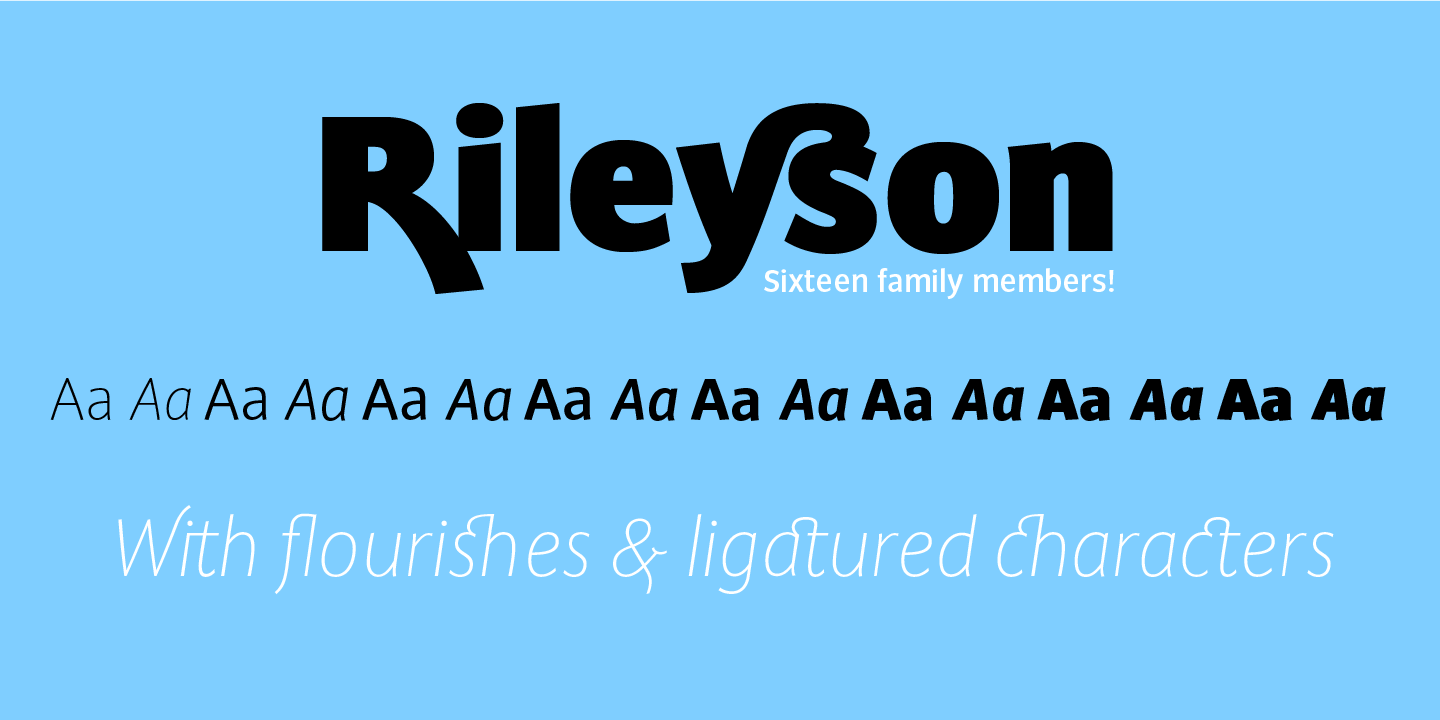
The Rileyson Font is perfect for contemporary corporate branding, modern business communications, professional service identities, executive presentations, sleek website designs, sophisticated marketing materials, premium consulting firms, and distinguished organizational logos. This refined typeface excels in projects for law firms, financial institutions, consulting companies, technology corporations, and businesses requiring authoritative typography that conveys trustworthiness, expertise, and contemporary professional excellence.
What makes the Rileyson Font exciting is its masterful balance of traditional reliability with modern sophistication and executive presence. The font features meticulously crafted letterforms with confident proportions and subtle contemporary refinements that create an immediate association with professional competence and business authority. Its distinguished character and versatile elegance make it perfect for organizations seeking to establish credibility and leadership while maintaining approachable professionalism. The font's executive quality and business acumen create lasting impressions in competitive professional markets.
The Rileyson Font family includes professionally-designed variations: Light Professional, Regular Business, Medium Executive, Semi Bold Authority, Bold Leadership, and Heavy Corporate versions. Each weight maintains superior legibility while offering different hierarchical levels for complex business communications and executive documentation. The family also features business symbols, professional numerals, corporate ligatures, and executive typographic details that enhance high-level business design projects.
Whether you're developing corporate brand identities, creating executive marketing materials, or designing professional promotional campaigns, the Rileyson Font Free Download provides the ultimate solution for projects requiring authoritative business typography. This exceptional typeface brings genuine professional distinction to design work, making it an essential resource for designers working with established businesses, professional services, executive communications, and organizations demanding the highest standards of corporate sophistication and business credibility.